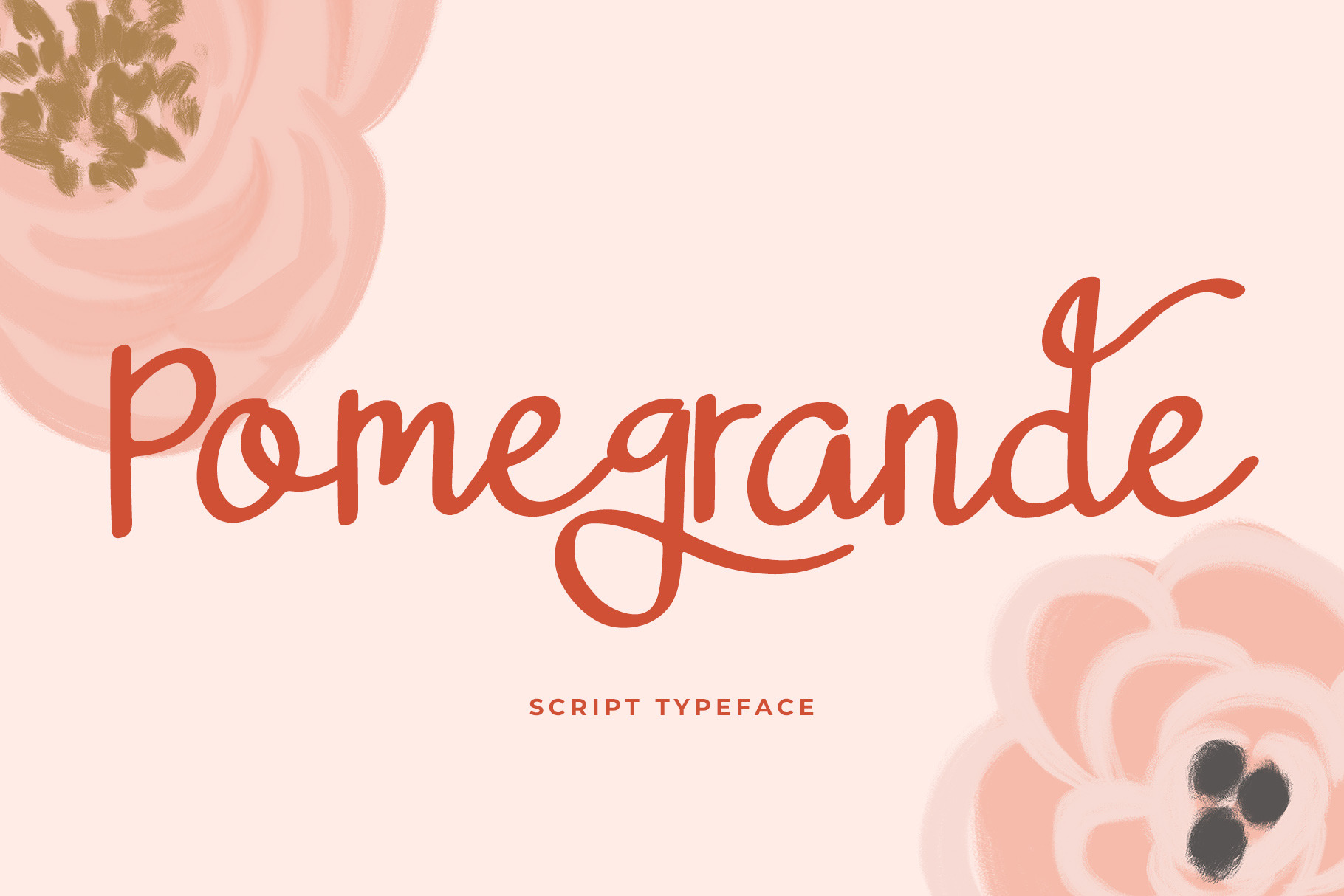
Pomegrande Script Typeface
I proudly introduce to you Pomegrande script typeface font with stylish, signature, feminine, elegant, bold, and handwriting look font. Can make it easier to convey the message in your design. Use for awesome display, Logo, labeling, clothing, wedding invitation, quotes, blog title, youtube video title, album covers, logos, and much more.
- 3 Family Style of font ( Regular, Italic and Bold )
Font Featured :
- Numbering
- Symbol & punctuation